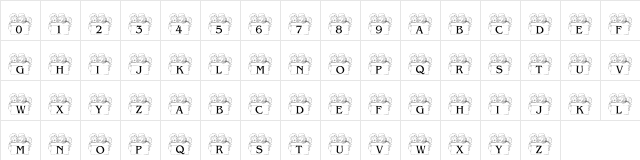
pf_xmas_package1 Regular Font Preview
pf_xmas_package1 Regular
Design Context for pf_xmas_package1 Typeface
pf_xmas_package1 is a composed and adaptable typeface that performs quietly and consistently across a wide range of design contexts.